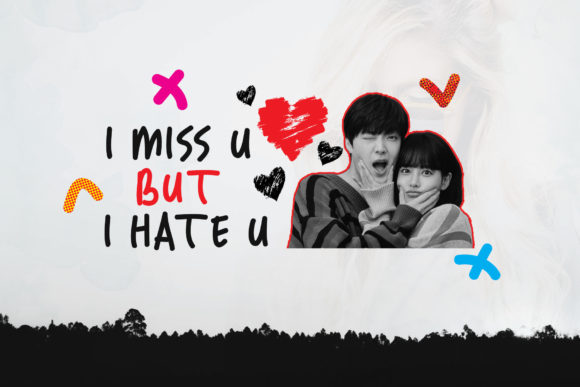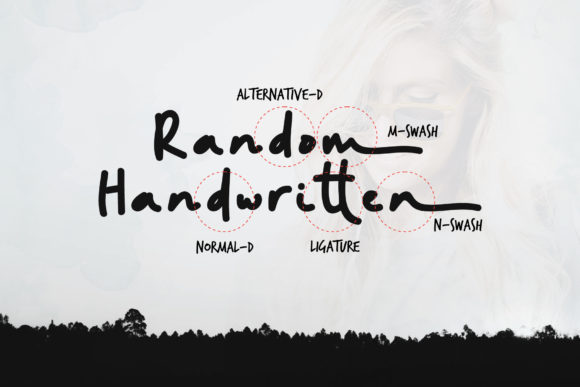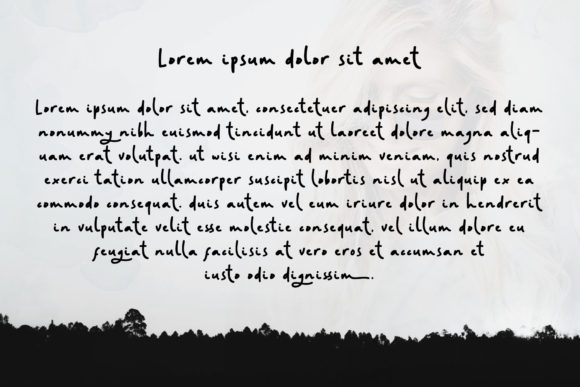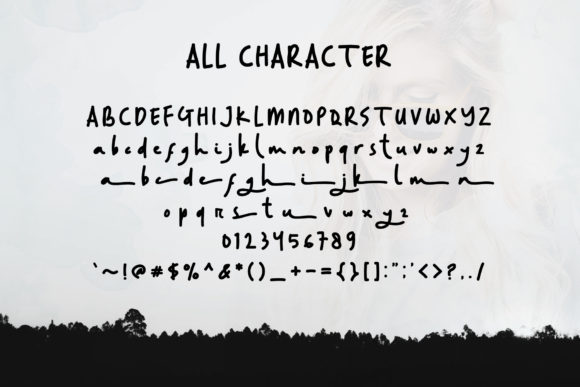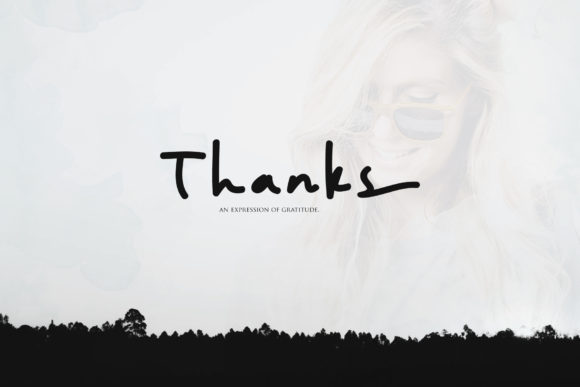
Introduction to Random Handwritten Font Font
Fonts play a crucial role in design, and the Random Handwritten Font font is a typeface that brings both character and versatility to any project. Whether you’re working on a branding project, a website, or a print design, the Random Handwritten Font font offers a unique style that can elevate your work.
Random Handwritten is a rustic handwritten font, carefully handcrafted to become a true favorite.
Its casual charm makes it appear wonderfully down-to-earth, readable and, ultimately, incredibly versatile Random Handwritten will look outstanding in any context, whether itβs being used on busy backgrounds or as a standalone headline.
Key Features of Random Handwritten Font Font
Why Choose Random Handwritten Font Font?
The Random Handwritten Font font is more than just a typeface β it’s a design tool that helps you communicate your message with style and clarity. Its unique character set and versatile design make it suitable for a wide range of applications, from elegant invitations to bold headlines.
With its carefully crafted letterforms and balanced proportions, the Random Handwritten Font font ensures readability and visual appeal across all mediums.
What makes Random Handwritten Font font special?
The Random Handwritten Font font stands out with its unique design, exceptional readability, and versatility across various design applications.